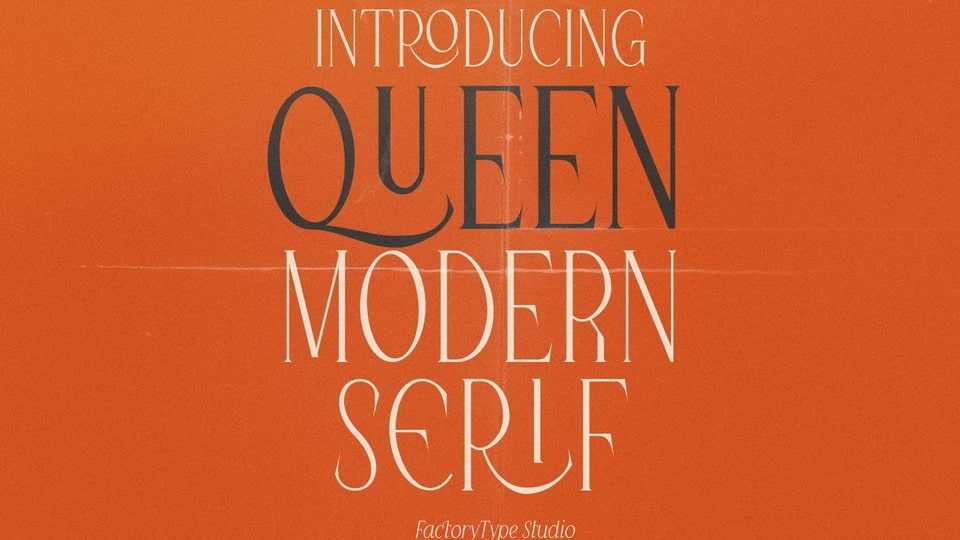
Download Queen Serif font, a stylish serif typeface. Its clean and modern design provides just enough vintage flair to give your projects an elegant look.